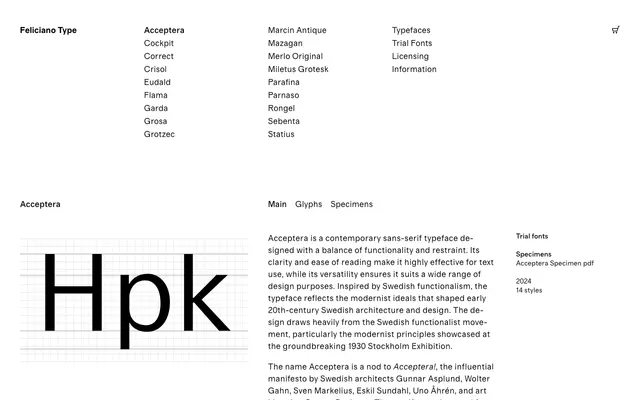
Acceptera
A sans-serif typeface drawing on Swedish functionalism, named after the 1930 modernist manifesto by Gunnar Asplund and his contemporaries.
Available in seven weights from Light to Black with matching italics, the family is designed for text use with a clarity that reflects the functionalist ethos of early 20th-century Swedish architecture. The name references Acceptera!, the manifesto that advocated functionalism in architecture and design, and the letterforms follow that same logic of clean, practical construction. Fourteen styles in total at a single width, suited to editorial, wayfinding and corporate work where restraint is preferred.
A contemporary sans-serif rooted in Swedish functionalist modernism, with clean practical forms suited to text use; the humanist sans subcategory fits its legibility-first approach and organic origins in early 20th-century modernist design.